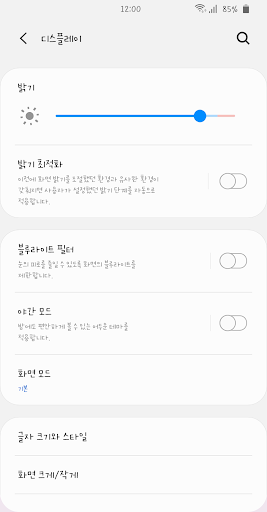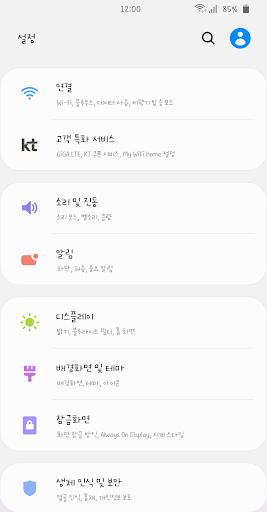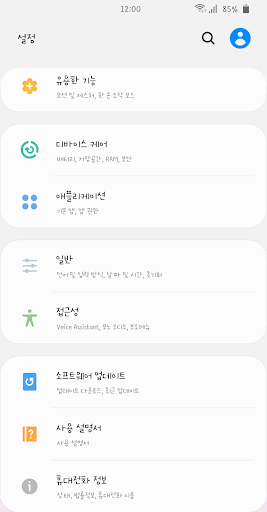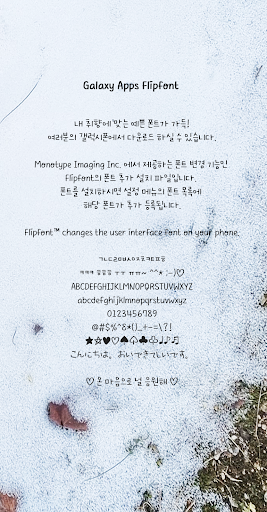
AhCheering
This font is a characteristic magnetic design that is cute and crooked, and is produced with a message of support for everyone who is tired.